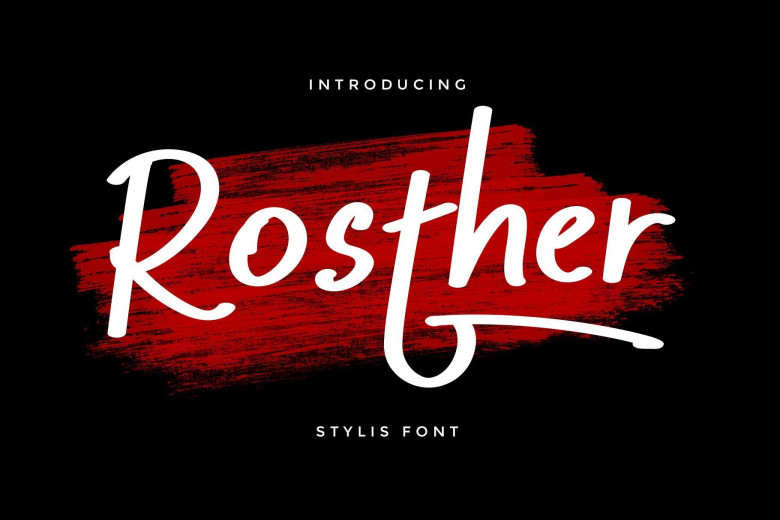
Rosther Bold Script Font
Proudly present Another stylis font “Rosther Bold Script Font”. I  keep this font looks more sporty. classy, readable, stylish, catchy and easy to use. Rosther is the great choice for watermark on photography, signature or signature logo design, quotes, album cover, business card and many other design project.